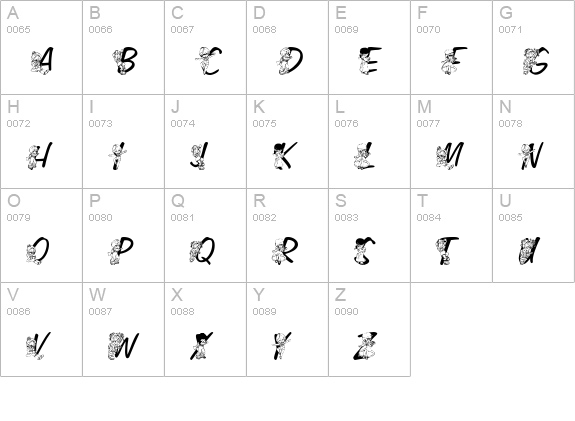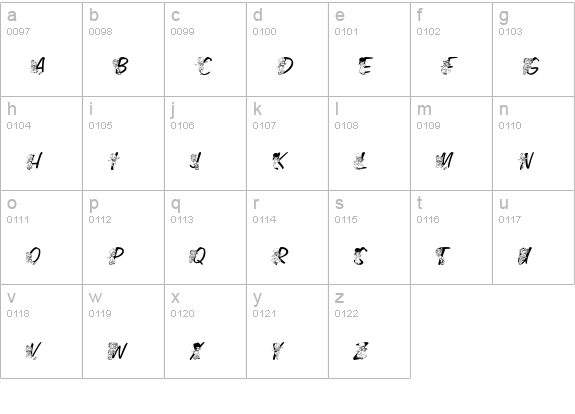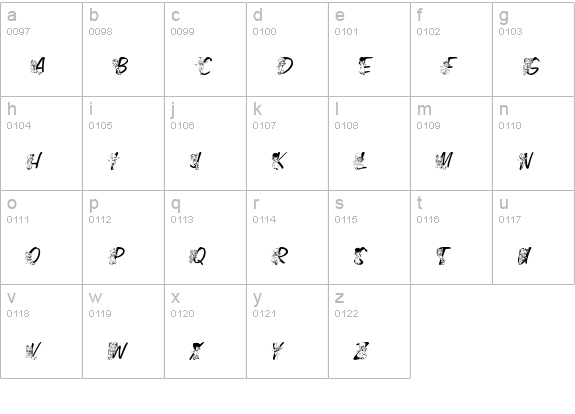
LMS Color Kids font is a vibrant and playful typeface that is sure to bring a fun and youthful touch to any design project. With its bold and colorful letters, this font is perfect for creating eye-catching posters, invitations, and more. The whimsical style of LMS Color Kids font makes it ideal for projects aimed at children or anyone looking to add a touch of creativity to their work. Best of all, LMS Color Kids font is available for free download at FontsMarket.com. This means you can easily access this charming font and start incorporating it into your designs without any cost. Whether you're a graphic designer, teacher, or parent looking to add some cheer to your projects, LMS Color Kids font is a fantastic choice that won't break the bank. Download it today and let your creativity shine!